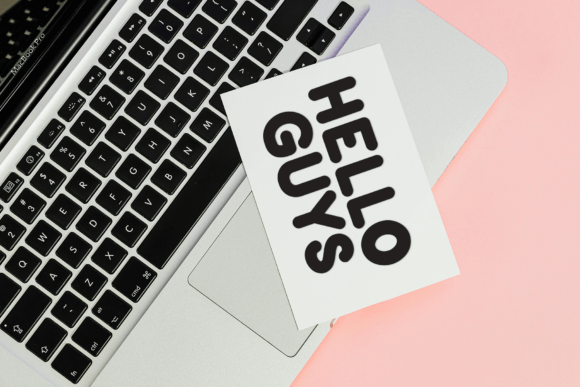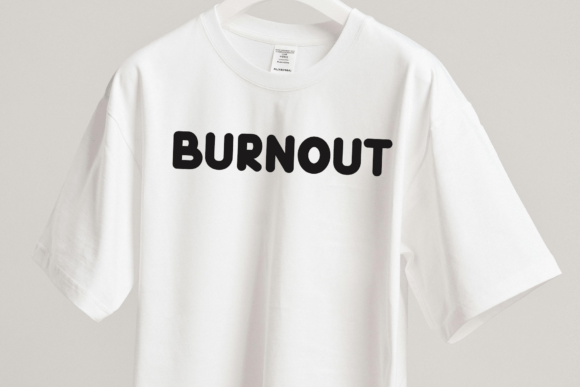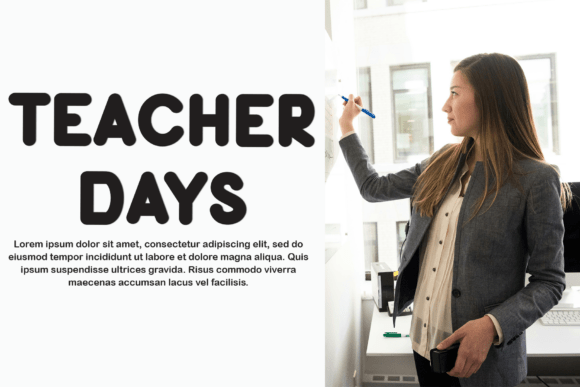
Introduction to Magazine Publisher Font
Remember the thrill of flipping through a glossy magazine, captivated by the beautiful typography and captivating visuals? That’s the magic of a well-designed font, and the Magazine Publisher Font is one such treasure that will transport you to that world of creative bliss. Its unique strokes and soft touch evoke a sense of elegance and sophistication, making it the perfect choice for designers looking to elevate their projects.
As a valuable design resource, the Magazine Publisher Font is compatible with various applications, including Windows and open-source platforms. Its versatility and high-quality design make it an ideal choice for a wide range of creative projects, from crafting to design work. With its transparent background and seamless integration, this font is a dream come true for designers seeking a perfect blend of style and functionality.
Whether you’re working on a design project or simply looking for a beautiful font to enhance your crafts, the Magazine Publisher Font is an excellent choice. Not only is it free to download, but its unique character also makes it a standout in any design. Get ready to unleash your creativity with this stunning font, and discover the endless possibilities it has to offer.
Magazine Publisher Font
- High-quality, professional font ideal for creative projects and publications
- Unique, modern design with a transparent background, allowing for versatility in layout and composition
- Perfect for magazine publishers, designers, and writers seeking a high-quality font for their publications and creative projects
Honest Review: Magazine Publisher Font
As a designer, I’ve had my fair share of using various fonts for creative projects. Recently, I stumbled upon the Magazine Publisher Font, which promised to deliver high-quality typography for magazine-style designs.
- ✨ Beautiful, elegant typography that’s perfect for magazine-style designs
- ✨ High-quality design that’s suitable for both print and digital media
- ✨ Transparent background makes it easy to overlay on any design
One of the standout features of the Magazine Publisher Font is its high-quality design. The font is clean, elegant, and sophisticated, making it perfect for magazine-style designs. The transparent background is also a huge plus, as it makes it easy to overlay on any design.
- ⚠️ Limited font styles available, which might be a drawback for some designers
- ⚠️ Not ideal for designs that require bold, playful typography
Overall, the Magazine Publisher Font is a great design resource for designers who need high-quality typography for magazine-style designs. While it has some limitations, it’s a free download that’s definitely worth checking out.
Tips for Getting the Most Out of Magazine Publisher Font
For the best results, use Magazine Publisher Font with a transparent background to create a clean and modern look. Experiment with different font sizes and styles to find the perfect balance for your design.
Magazine Publisher Font is ideal for a variety of creative projects, including magazine layouts, brochures, and business cards. Use the font to add a touch of sophistication and professionalism to your designs.